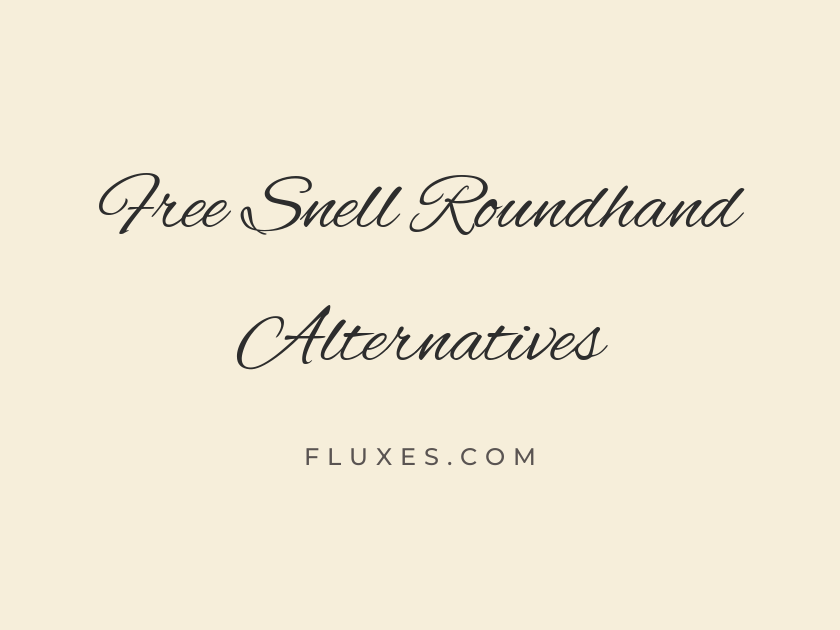
15 Best Free Fonts Alternatives to Snell Roundhand
Snell Roundhand built its reputation on the fluid, disciplined swing of formal pointed-pen calligraphy, the kind of script you find engraved on wedding invitations, perfume labels, and luxury packaging. Since that font sits behind a paid license, designers searching for a free alternative need scripts that share its rhythm: elegant loops, consistent slant, and enough polish to read as sophisticated rather than casual. Google Fonts has quietly built up a strong library of calligraphic scripts that cover that ground, from close cousins of Snell Roundhand’s engraved elegance to looser brush-script relatives that bring warmth to invitations, branding, and editorial headlines.
Alex Brush comes closest to what most people picture when they think of a free Snell Roundhand alternative: a single confident stroke that mimics brush calligraphy with real fluidity. It reads well at display sizes on save-the-dates and logotypes, though its thin joins can thin out to near invisibility on cheap paper stock, so test print quality before committing.
Allura has a lighter touch than Alex Brush, with delicate hairlines and a slight forward lean that feels lifted straight from a calligrapher’s practice sheet. It suits monogram work and short phrases beautifully, but dense paragraphs will feel cramped, so keep it to headlines and names.
Pinyon Script is arguably the most direct stand-in for Snell Roundhand’s engraved, old-world formality. Its tall ascenders and dramatic swashes were built for the same world of formal stationery, bank notes, and certificates, and it carries that heritage without feeling like a costume.
Parisienne rounds off its letterforms more generously than a strict copperplate script, giving it a friendlier, more approachable voice. It works nicely on packaging for boutiques, bakeries, and beauty brands that want elegance without austerity.
Great Vibes is a workhorse in the wedding-design world for good reason. Its single weight is consistently legible even at smaller sizes, and the connected script flows cleanly into long names and dates.
Petit Formal Script leans further into restraint than most calligraphic alternatives, with narrower letterforms and a more upright, businesslike posture. It suits certificates, diplomas, and legal-style documents where Snell Roundhand traditionally appeared, and it stays crisp even in smaller print runs.
Mrs Saint Delafield has a looser, more handwritten energy than the classic copperplate scripts on this list. It feels personal, like an actual signature rather than an engraved plate, which makes it a good pick for personal branding, place cards, or a signature-style logo mark.
Italianno pulls its inspiration from Italian calligraphy traditions, with tall, narrow strokes and pronounced flourishes on the capitals. It pairs nicely with a clean sans serif body font for invitation suites, letting the display script carry all the personality while the sans handles the details.
WindSong sits at the softer end of the formal script spectrum, with letterforms that feel handwritten rather than engraved. It has two stylistic sets built into the family, giving some room to adjust the flourish level without switching fonts entirely.
Meddon has a slightly bouncier baseline than most formal scripts, which gives it a warmer, more conversational feel. It is a good option when a project needs the elegance of a script without leaning fully into old-world formality.
Rouge Script balances legibility and flourish more evenly than many display scripts, making it one of the safer choices for anyone nervous about readability. It holds up reasonably well in body-length lines, which is unusual for this category.
Miss Fajardose
Miss Fajardose is ornate almost to a fault, packed with swashes and decorative terminals that demand generous spacing around them. Reserve it for a single word or short phrase, a monogram, a logotype, a title, because at paragraph length the decoration overwhelms the message.
Tangerine is thinner and more delicate than most fonts on this list, closer to a fine-nib signature than a broad calligraphic hand. That delicacy makes it striking on light backgrounds and letterpress-style designs, but it can nearly disappear against busy imagery or low-contrast colors.
Herr Von Muellerhoff carries a distinctly European calligraphic flavor, with elongated swashes that feel more expressive than strictly formal. It makes a strong impression as a large monogram or title treatment, especially on invitations with a vintage or continental theme.
On the web, always add generous line height and letter spacing around script text, since these fonts often have tall ascenders and descenders that can collide at tight leading.
Any of these free Google Fonts options can carry the elegance associated with Snell Roundhand without the licensing cost, whether the project calls for a strict engraved copperplate feel or something a touch softer and more personal.